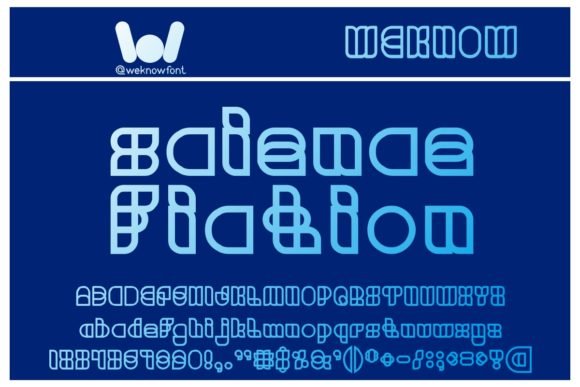
Introduction to Science Fiction Font
Science Fiction is a modern and clean display font.
Its versatility and neat vibe will brighten up each of your designs Have fun with this beautiful font and explore its endless variations.
Key Features of Science Fiction Font